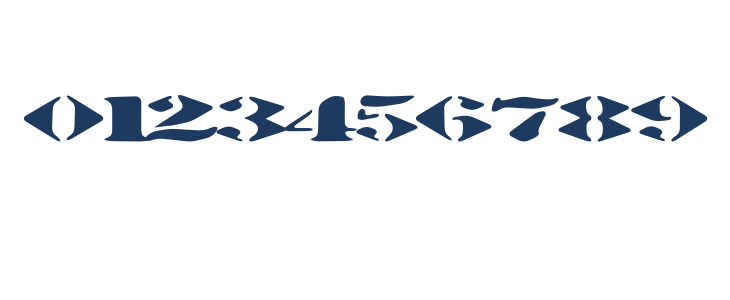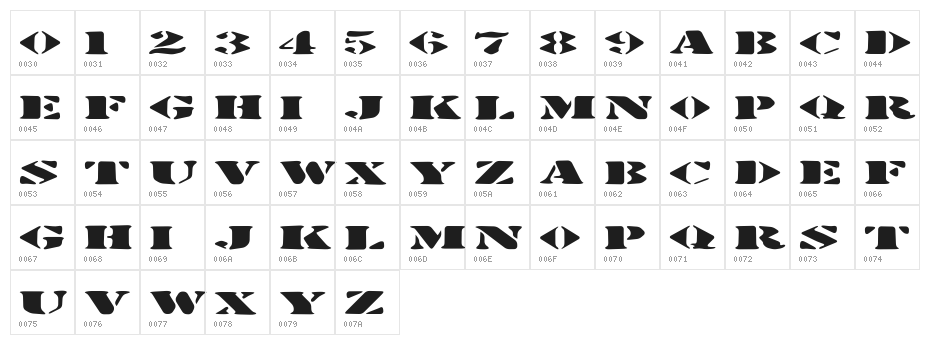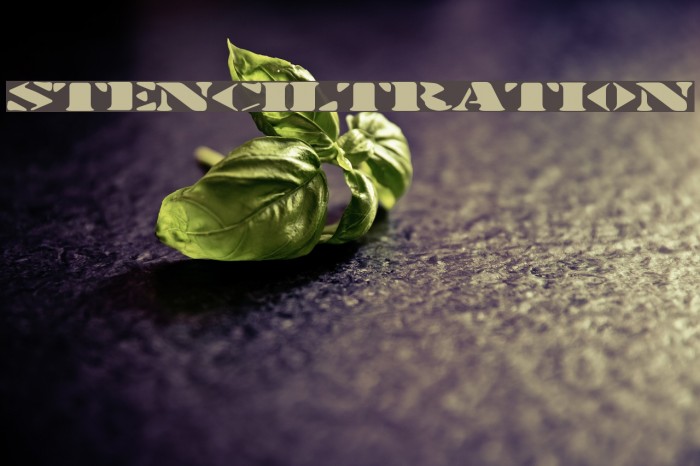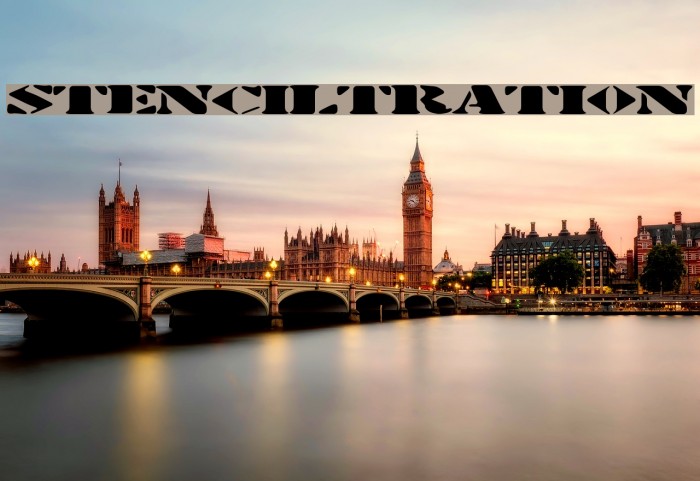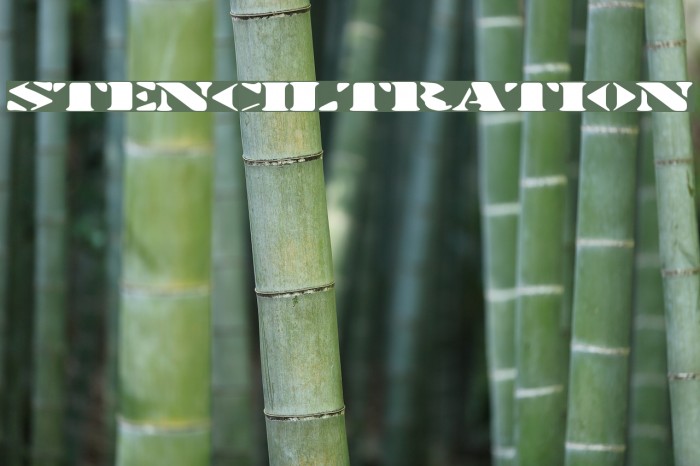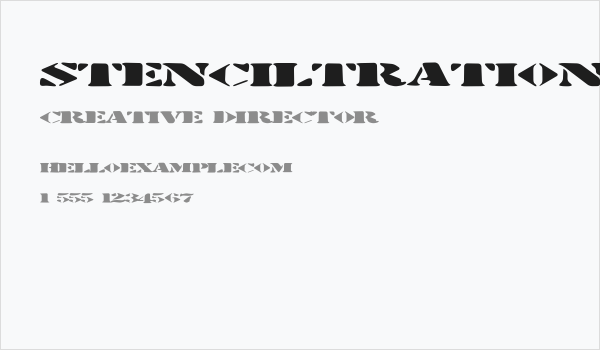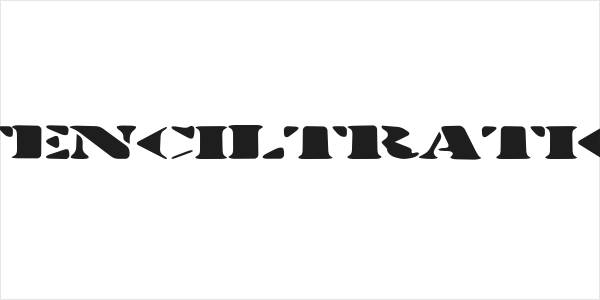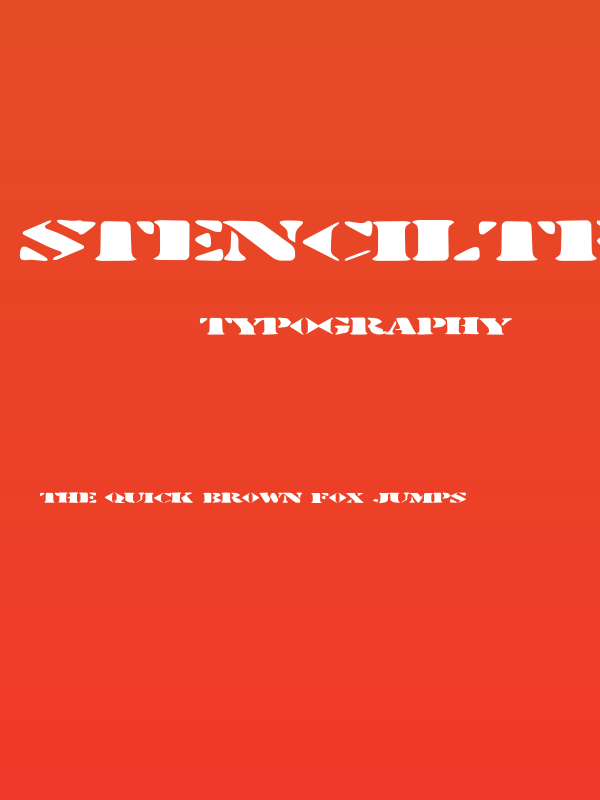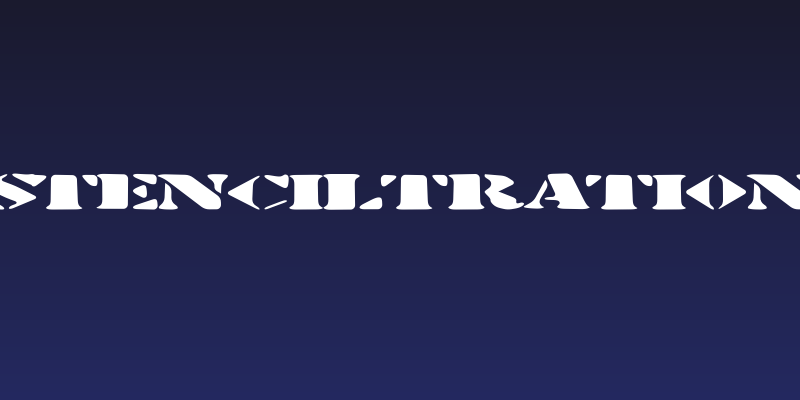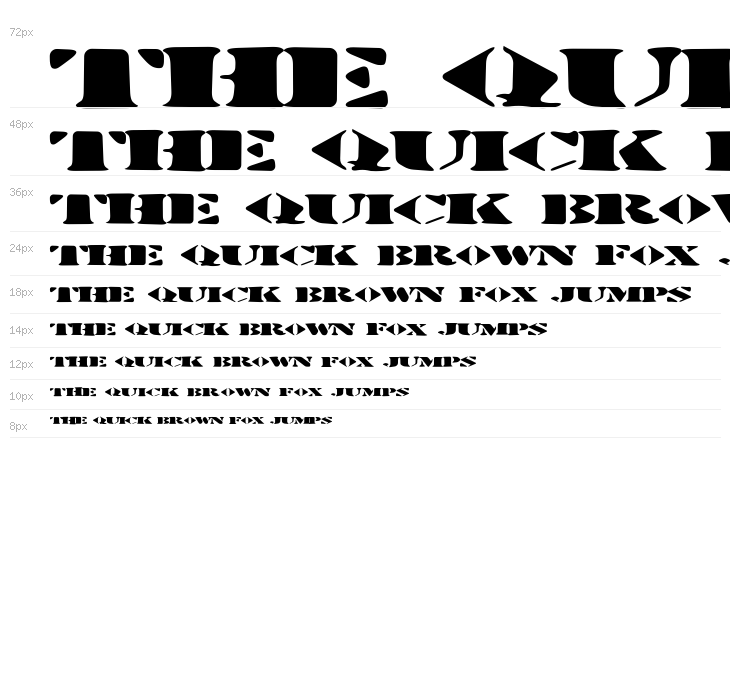
Stenciltration Font
This font features a bold, stencil-like design with distinct cut-out sections in each character, creating a rugged and industrial feel. The uppercase letters are prominent and commanding, while the numbers maintain the same boldness and style. The font's unique cut-out design gives it a dynamic and eye-catching appearance, making it suitable for attention-grabbing headlines or titles. The characters are evenly spaced, ensuring readability despite the intricate design. This font's bold and striking nature makes it ideal for projects that require a strong visual impact.
| Overall Style | Industrial, Bold, Decorative |
| Proposed Projects | Ideal for posters, logos, branding, and any design requiring a strong, industrial aesthetic. |